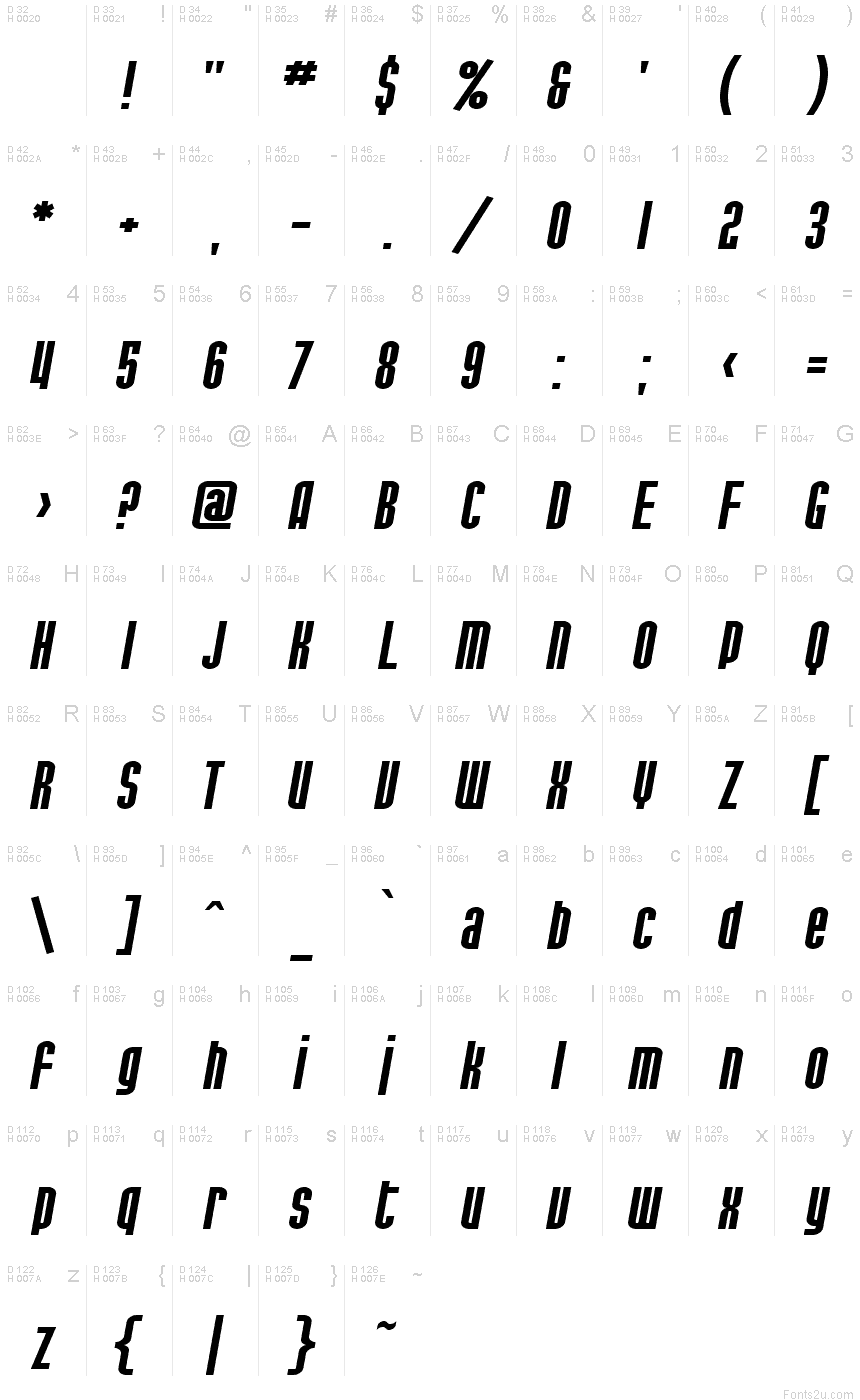
SF Port McKenzie Extended Italic
SF Port McKenzie, by ShyFoundry, is a free extended italic sans serif with a fast, late-modern sportswear feel. The letters lean hard and run tall, with tight curves and clipped joins that keep the alphabet looking compact, urgent, and slightly industrial rather than sleek.
It works well in posters, album covers, streetwear graphics, game branding, title cards, and short magazine cover lines where that forward tilt can do the heavy lifting. As a free font, it makes most sense for brief display settings, especially names, logos, and punchy headers, because the stretched forms and narrow rhythm carry motion before you even add color or layout.